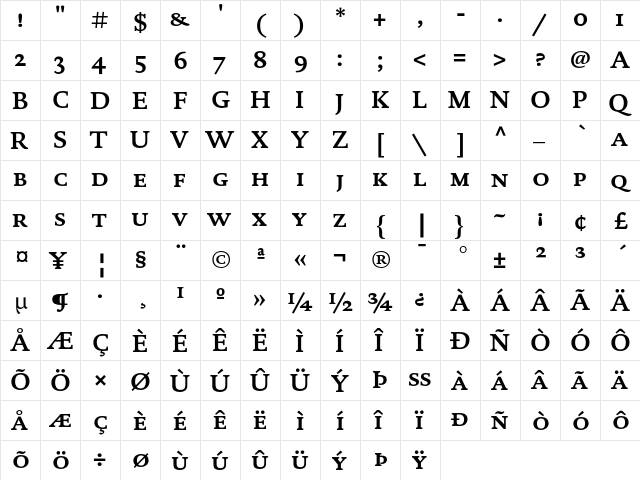
DTL Documenta T Caps Bold
Design Context for DTL Documenta Typeface
DTL Documenta takes a measured approach to typography — its balanced proportions and neutral character make it a reliable workhorse for both digital and print work. Its bold stroke weight gives it real presence on the page.